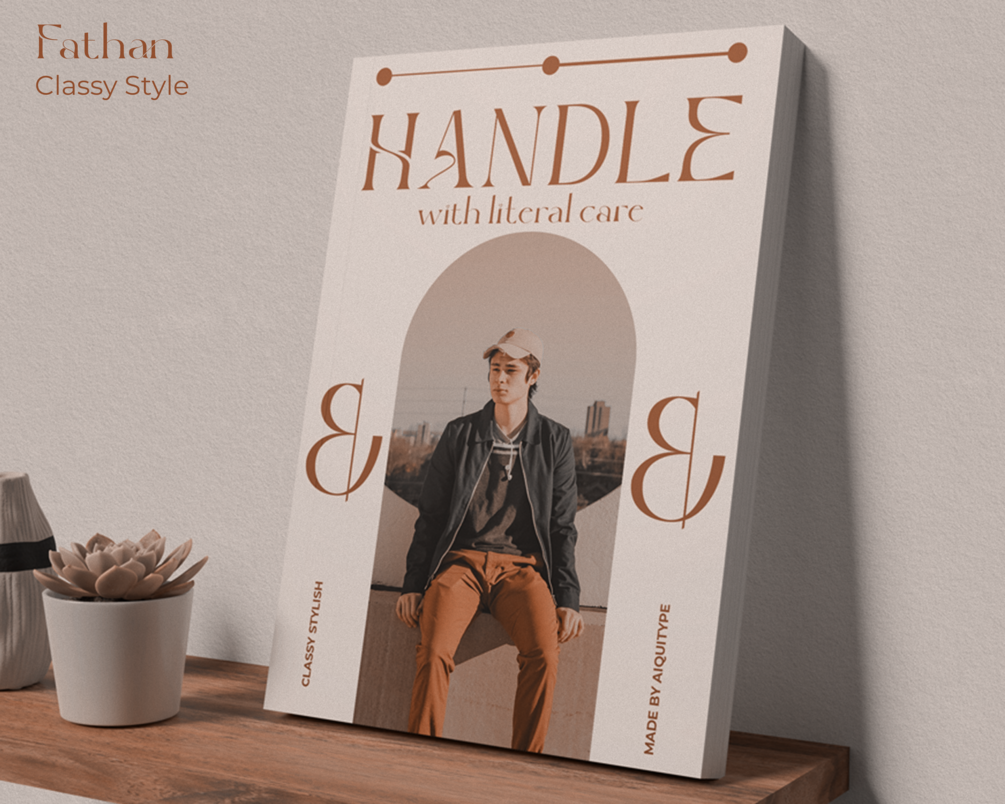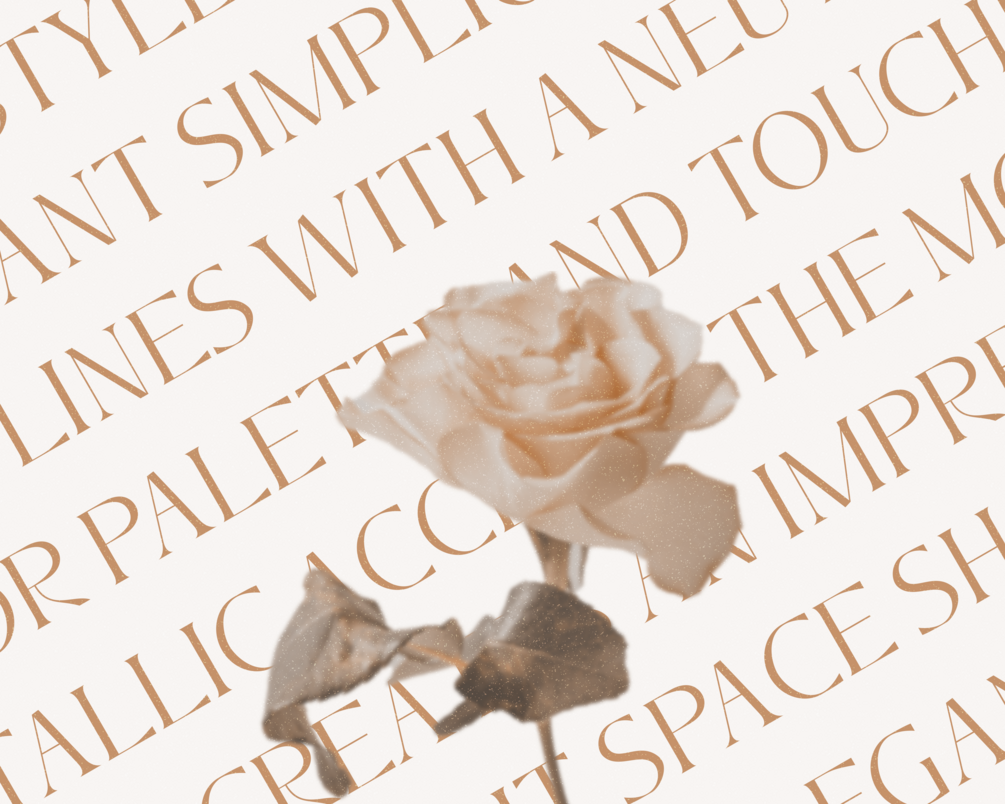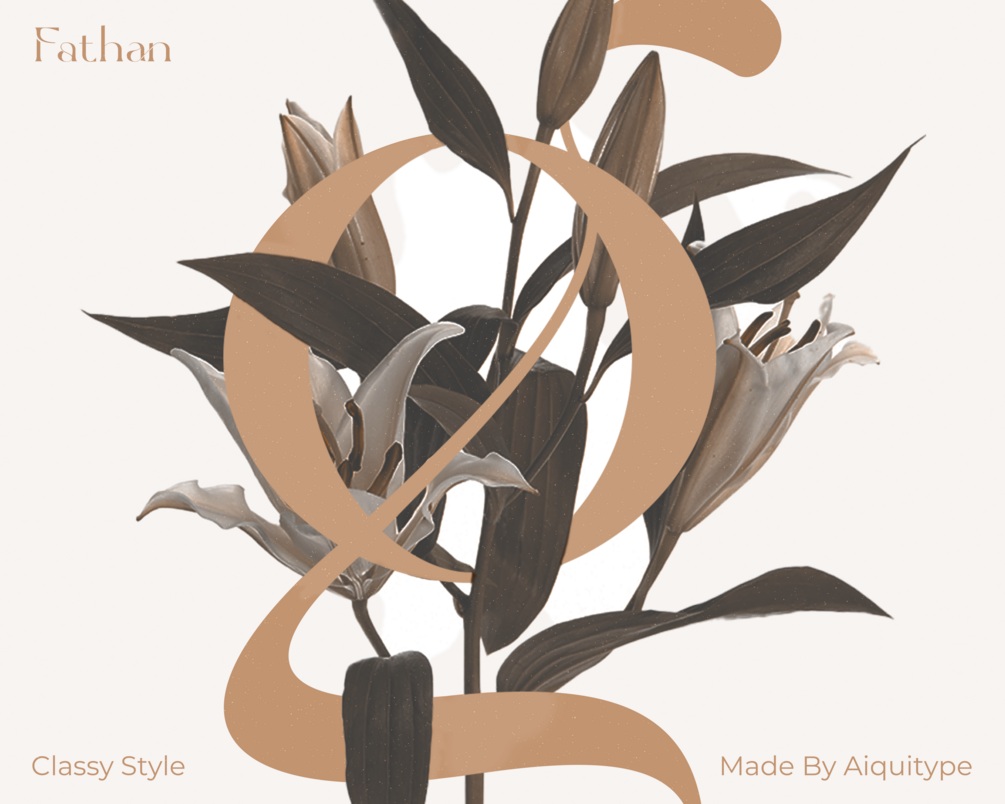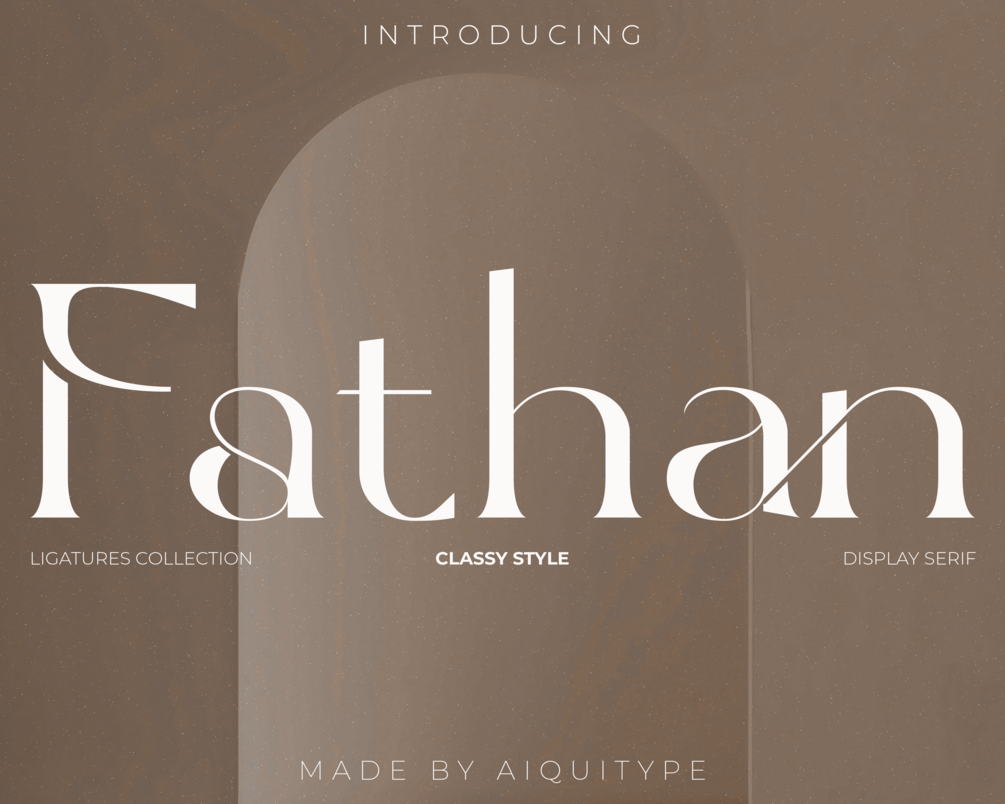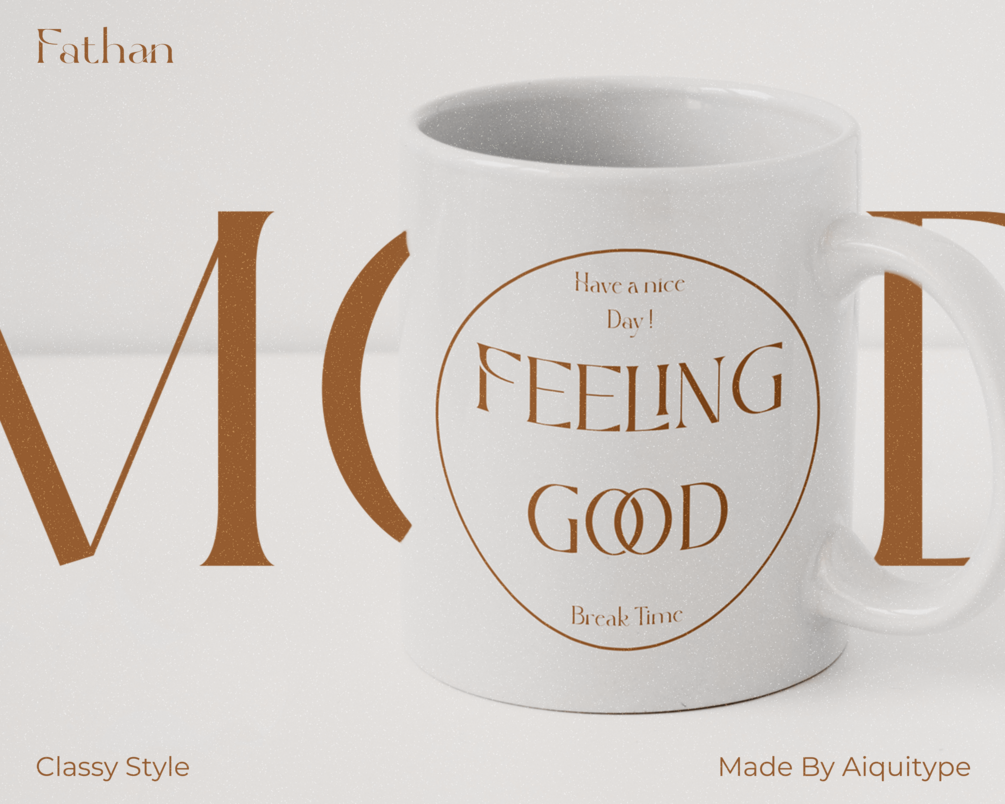
Fathan - Classy Display Serif Font
Introducing "Fathan - Classy Display Serif Font"
Fathan-Classy Display Serif Font is an elegant and refined typeface that exudes a timeless sophistication. With its meticulously crafted letterforms, this font embodies a perfect balance between classic charm and contemporary design. Its graceful strokes and distinctive serifs make it an ideal choice for luxurious branding, editorial design, and upscale packaging, imparting a sense of refined exclusivity to any project.